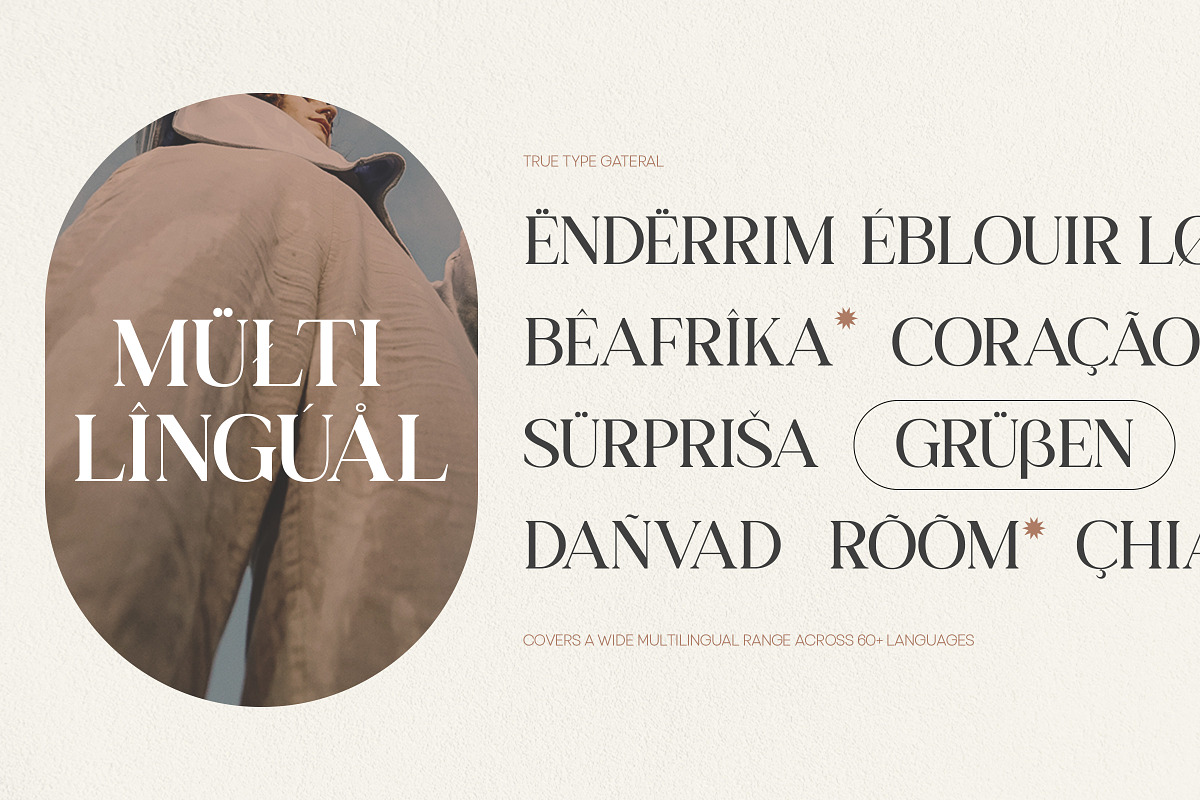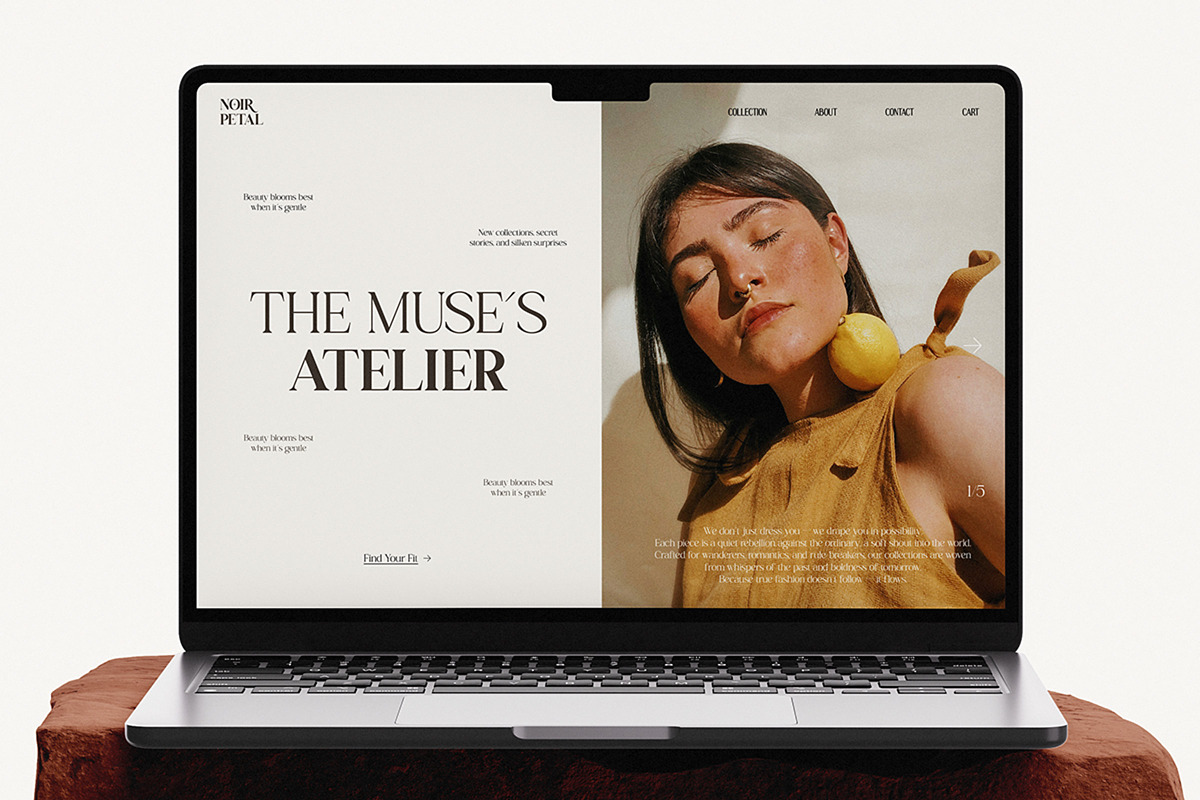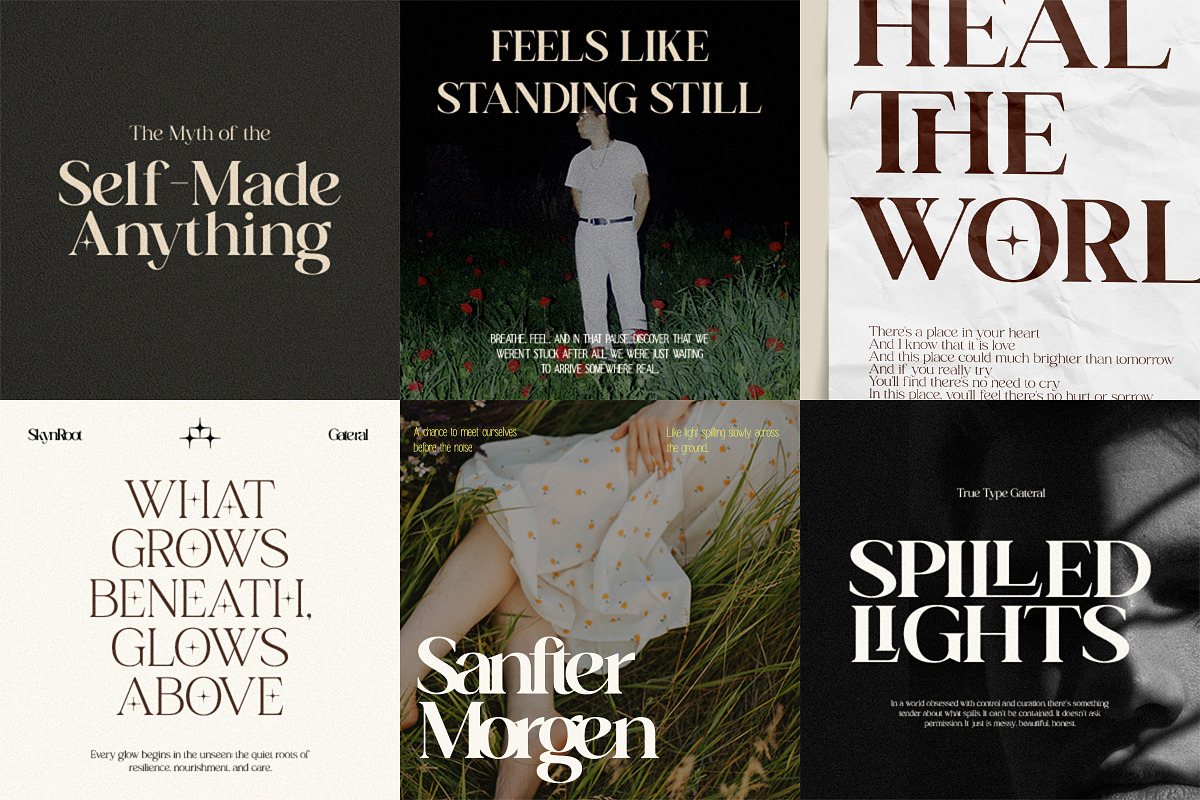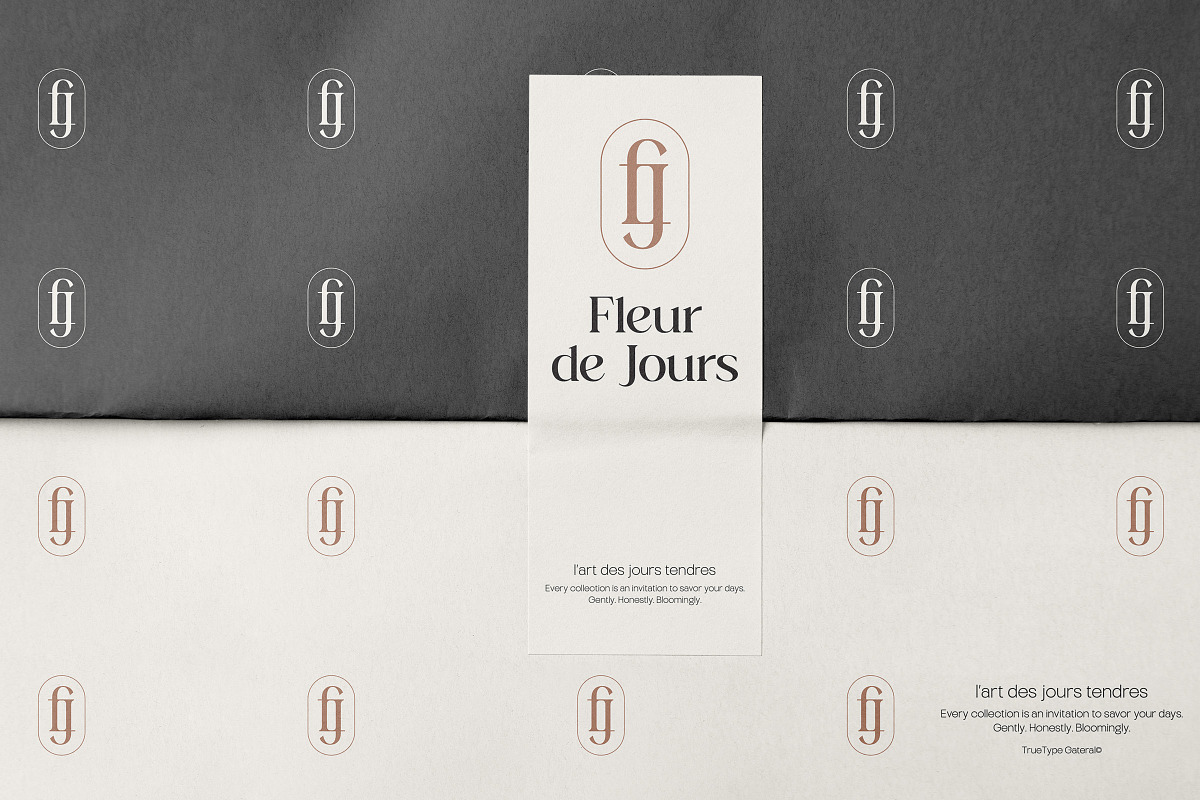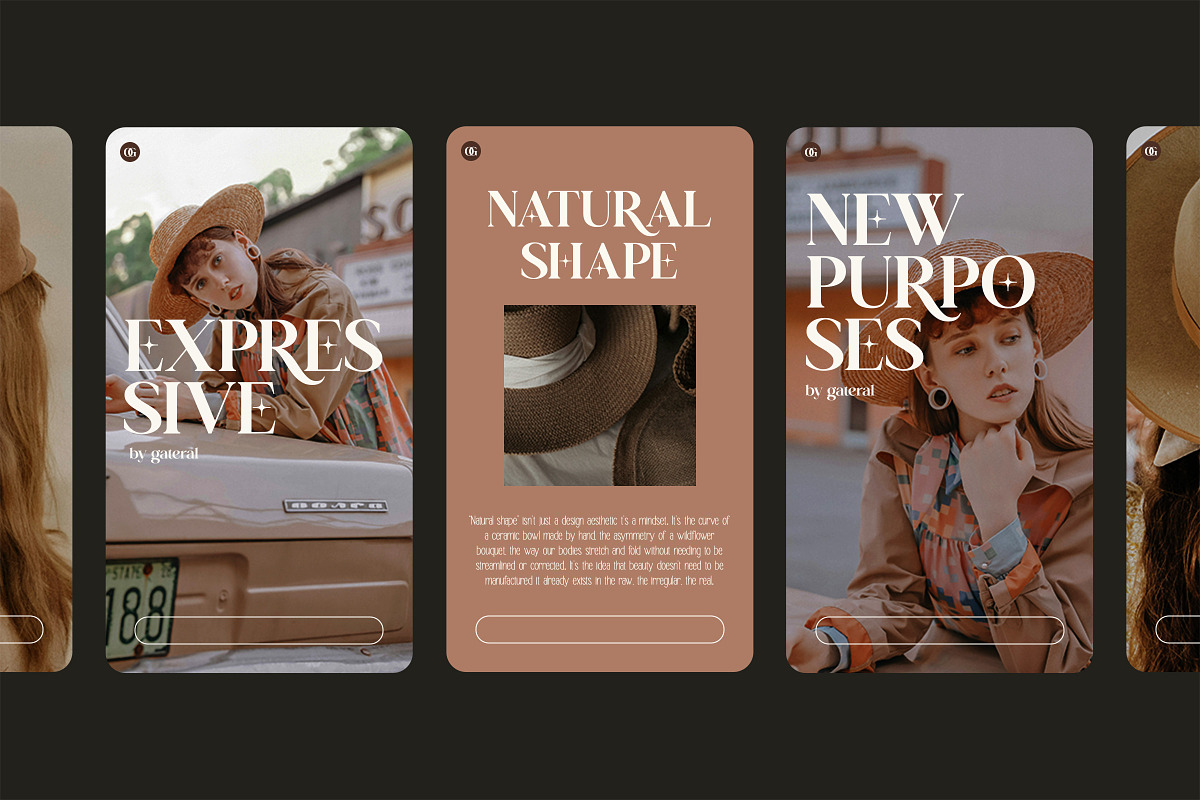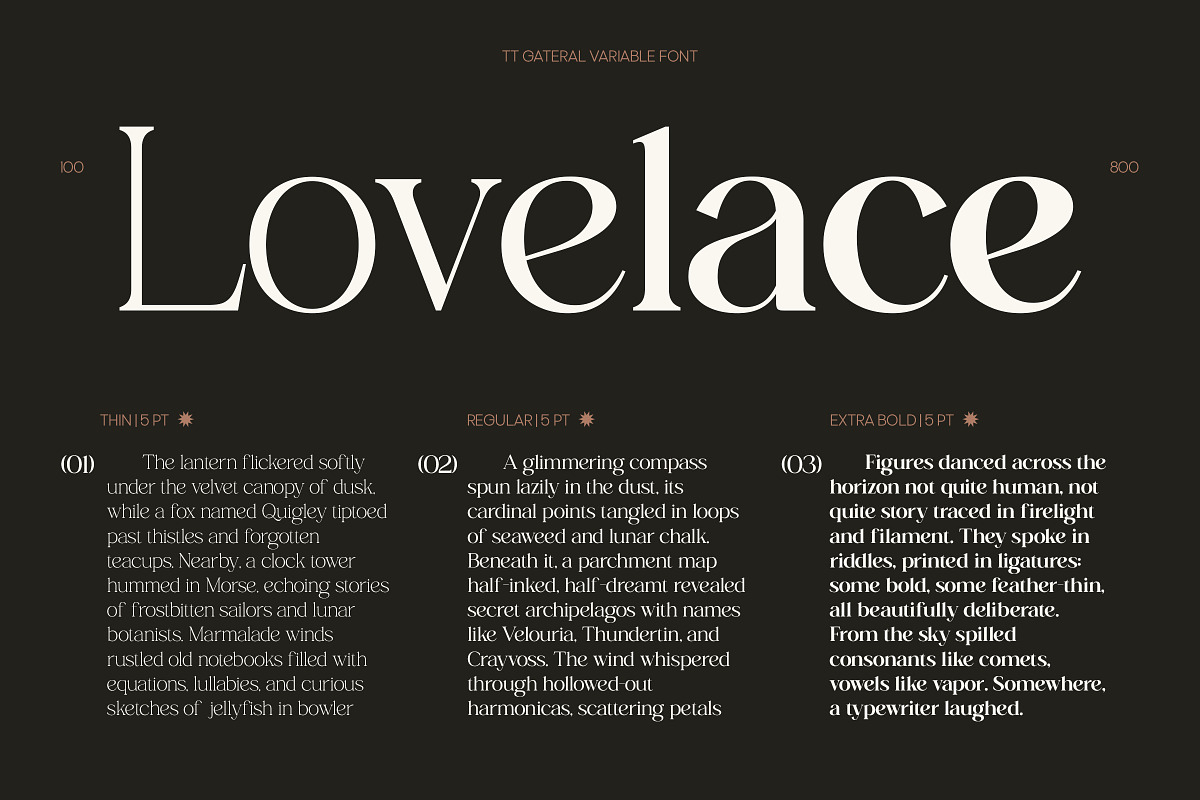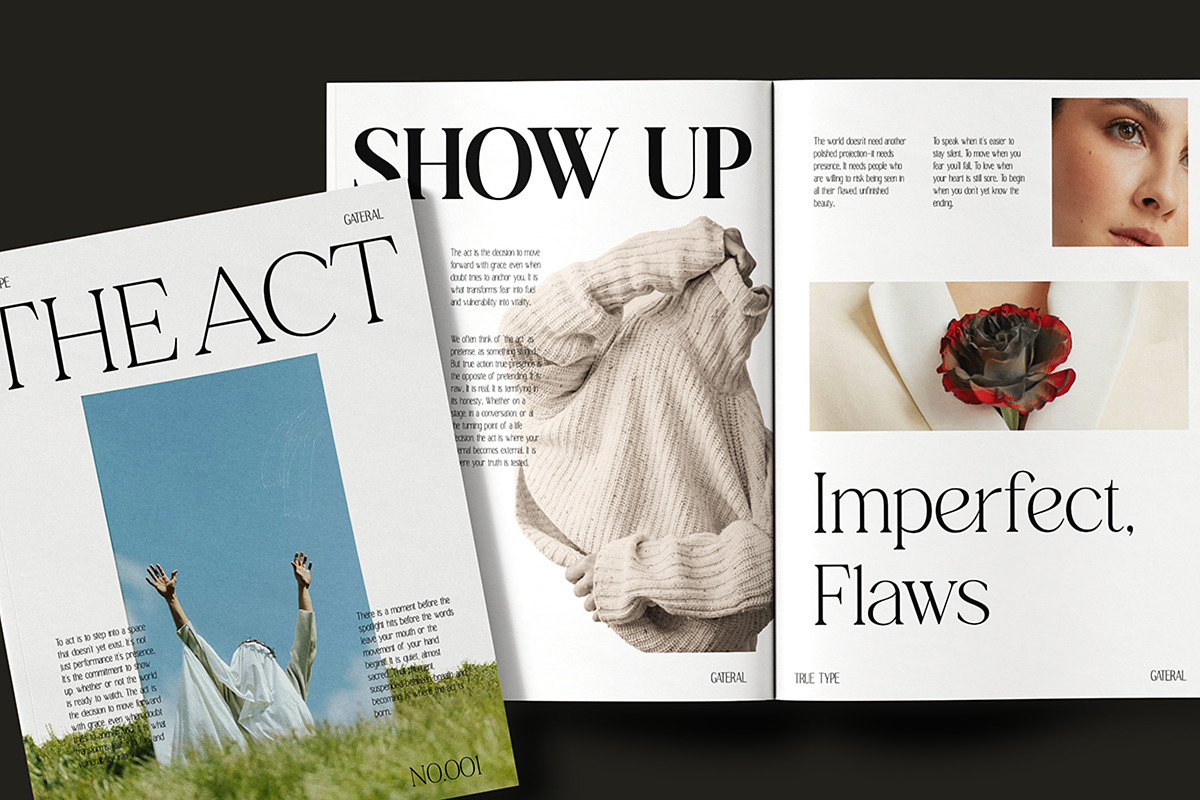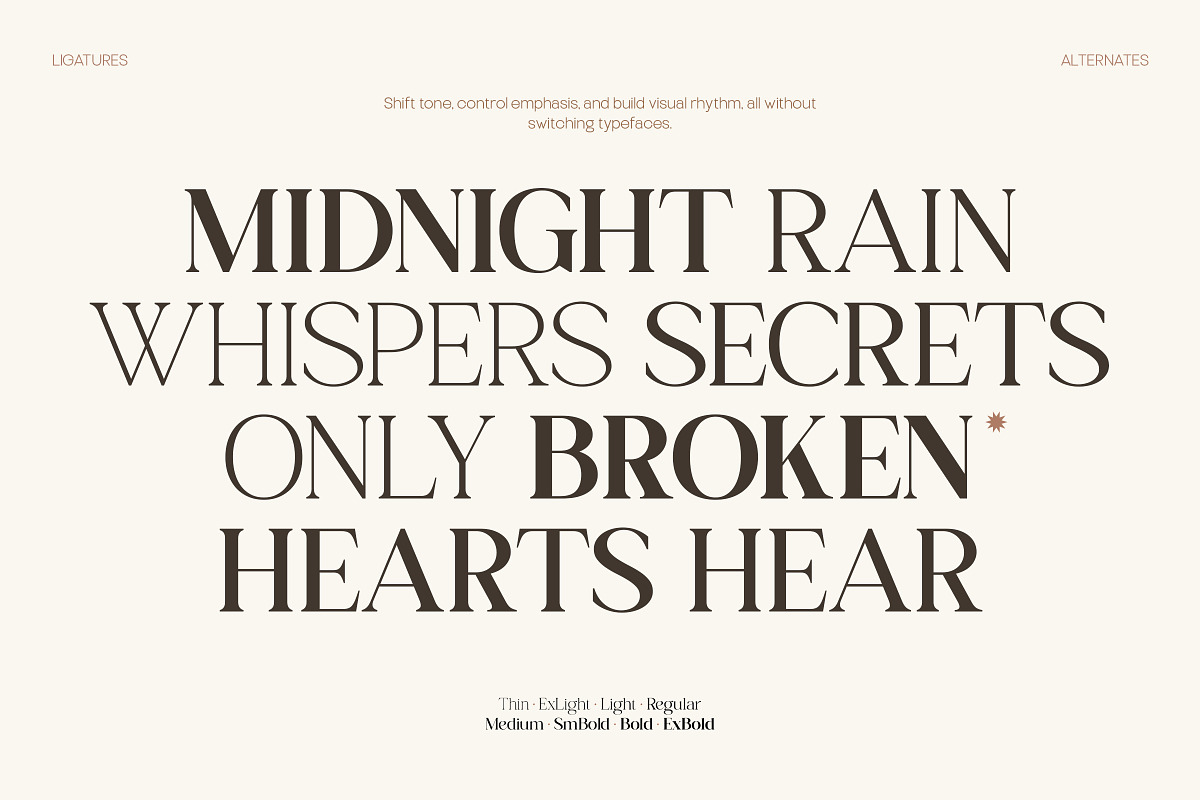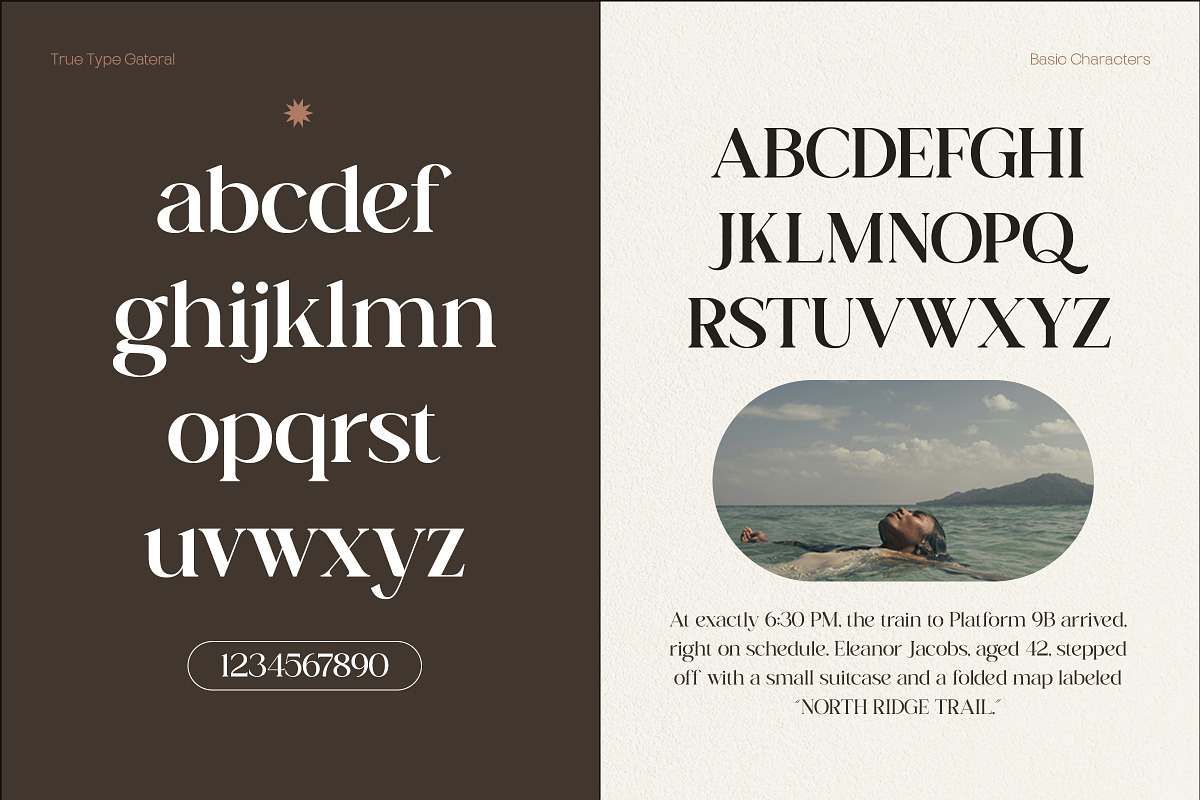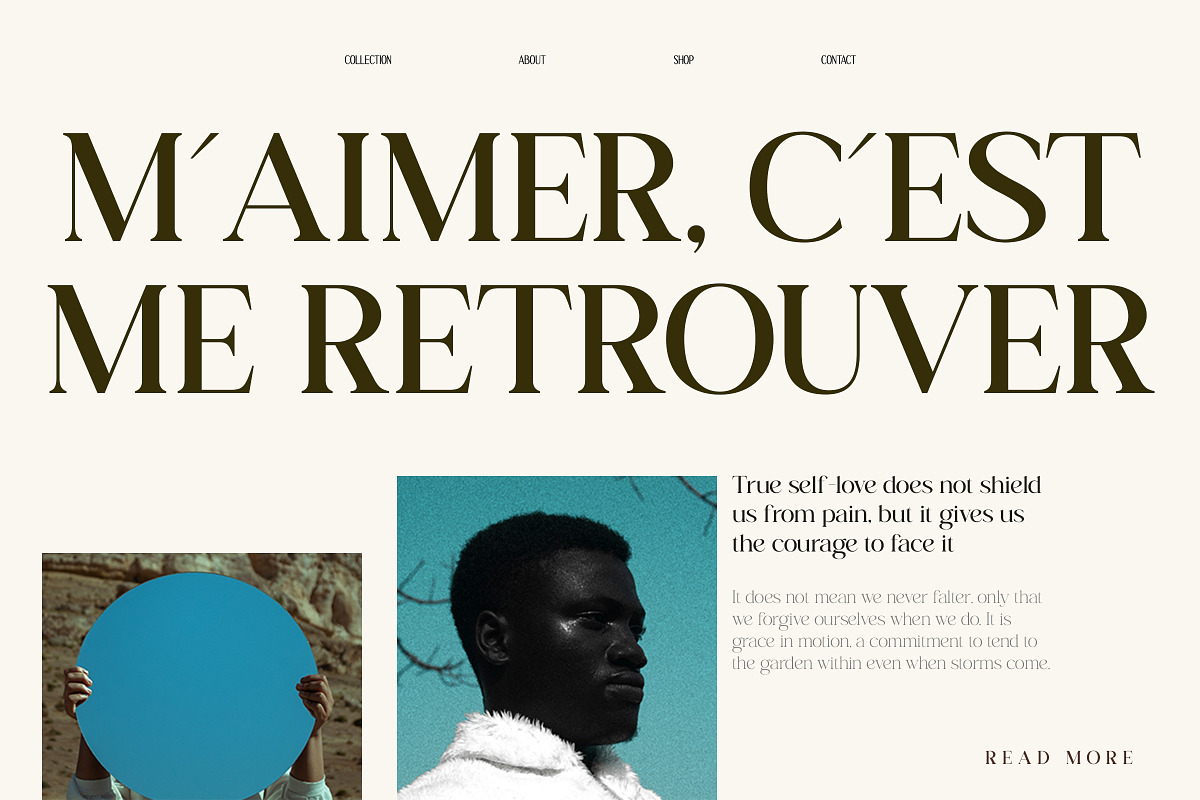
TT Gateral – Elegant Serif Typeface
TT Gateral is a serif typeface designed with clarity, balance, and subtle elegance in mind. Its clean structure and gentle contrast make it suitable for a wide range of uses from branding and editorial design to packaging and digital content.
Built to be readable at both large and small sizes, TT Gateral offers a professional tone without feeling cold or overly formal. It’s a typeface that feels confident, yet approachable — perfect for thoughtful design work.
Great for editorial layouts, brand identities, books, logos, presentations, and social media — anywhere you need typography that feels refined but not rigid. TT Gateral gives you a flexible tool to create calm, clear, and well-structured visual communication.